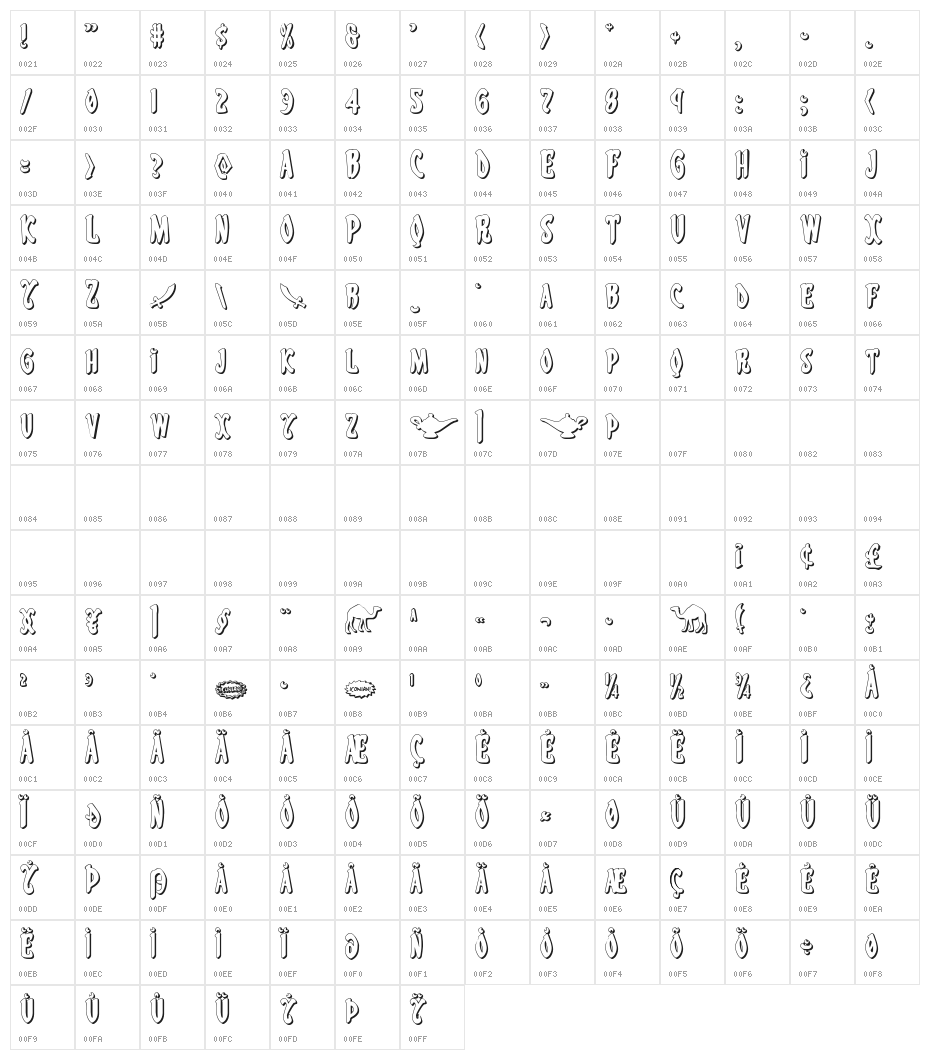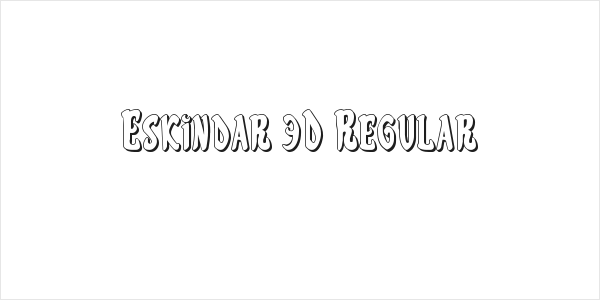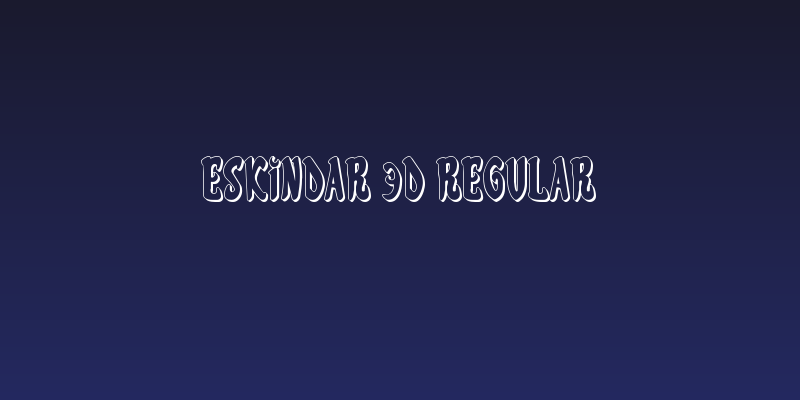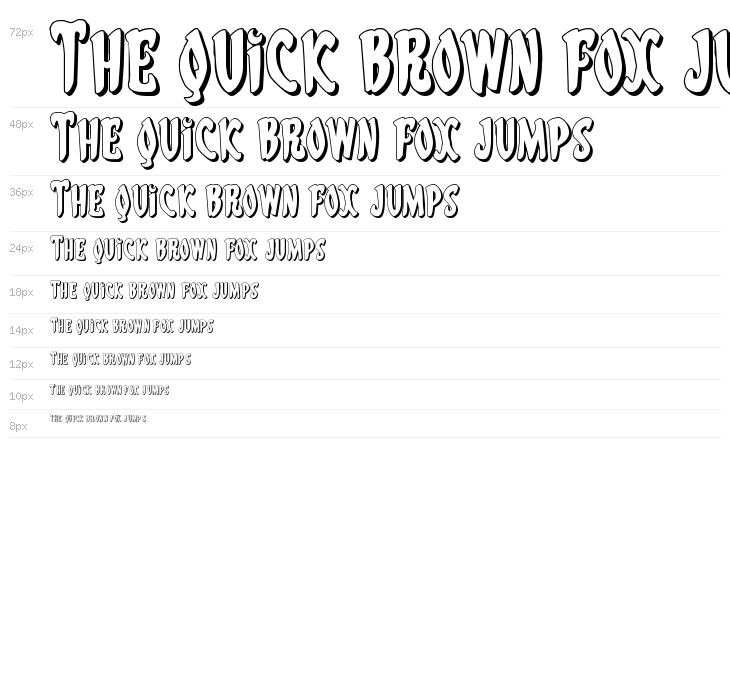
Eskindar 3D Regular Font
Eskindar 3D Regular Description
This font features a bold, three-dimensional style with a playful and dynamic appearance. The letters are outlined with a shadow effect, giving them a sense of depth and movement. The characters are slightly rounded, adding a friendly and approachable feel. The uppercase and lowercase letters maintain a consistent style, with unique curves and angles that make each character stand out. The numbers and special characters are designed to match the overall aesthetic, ensuring a cohesive look across all text elements.
| Proposed Projects | Ideal for eye-catching posters, playful branding, children's book covers, and creative digital graphics. |